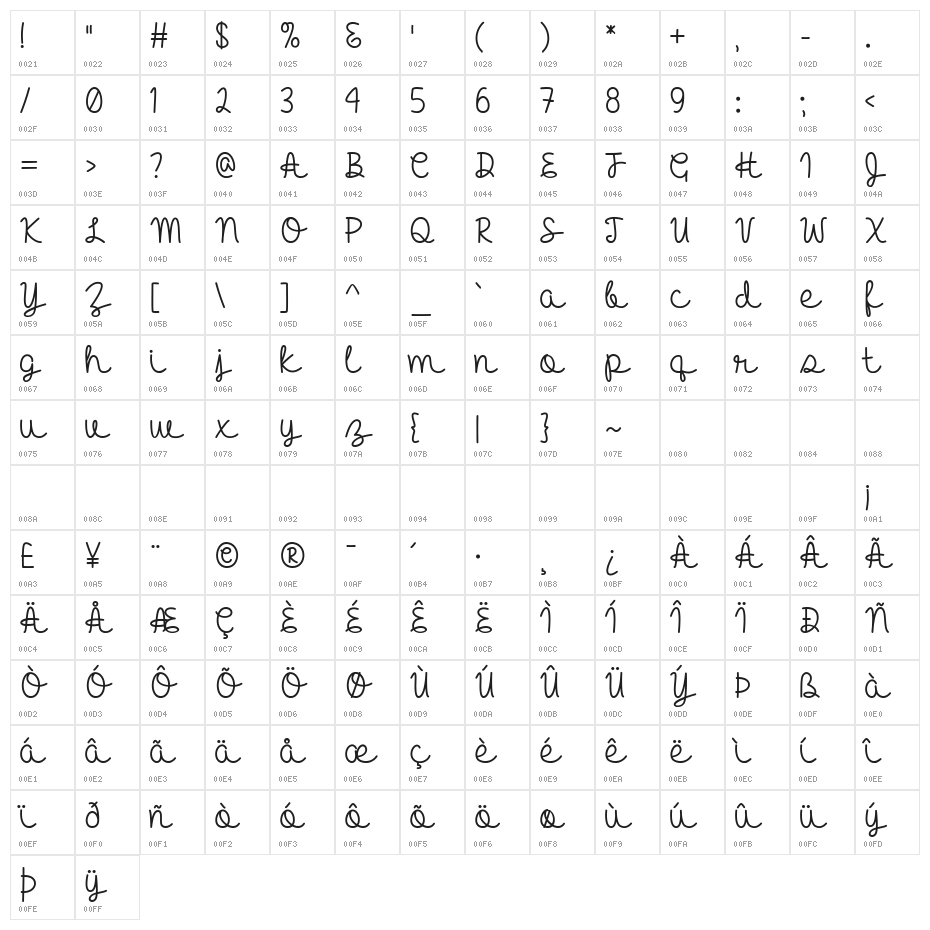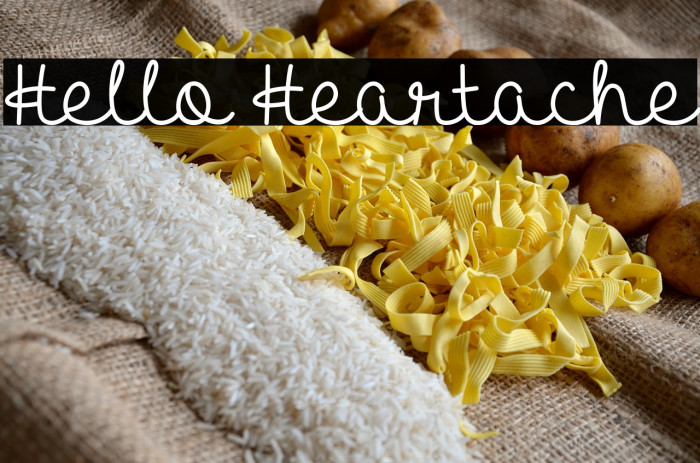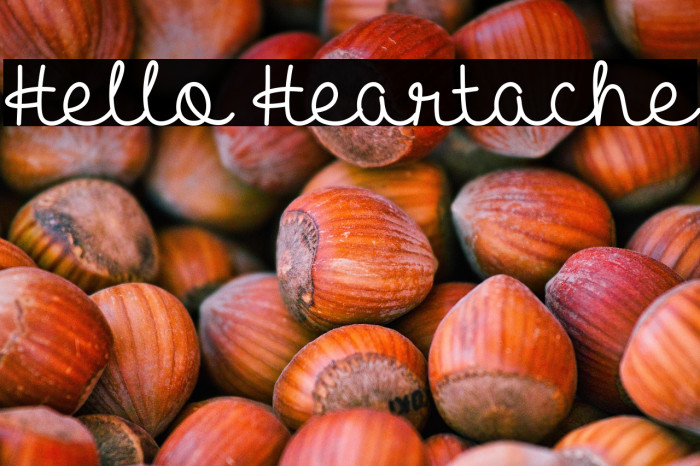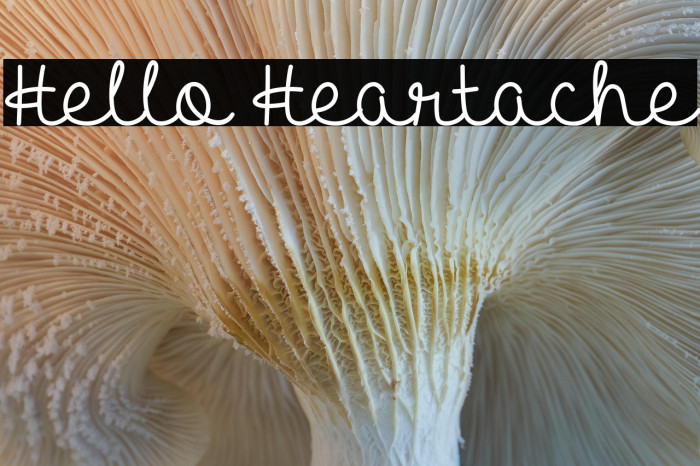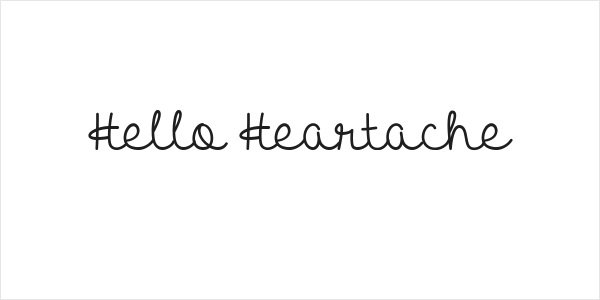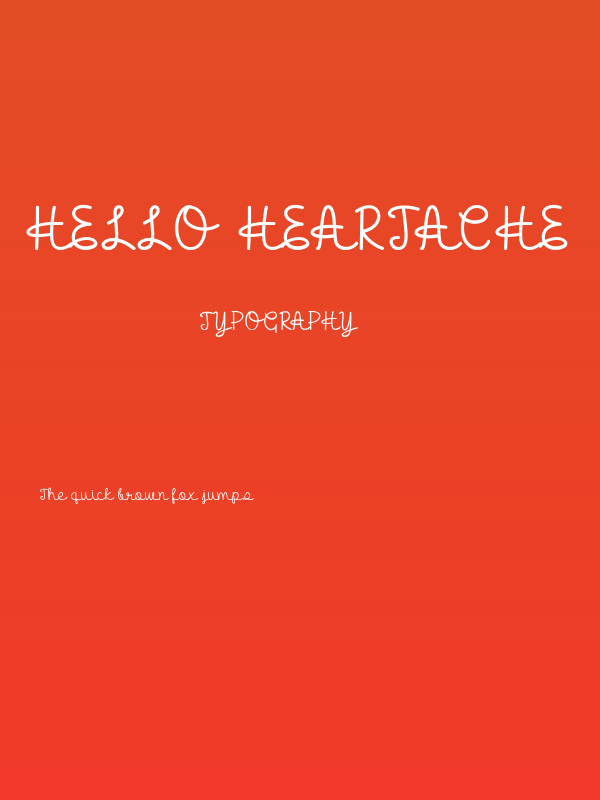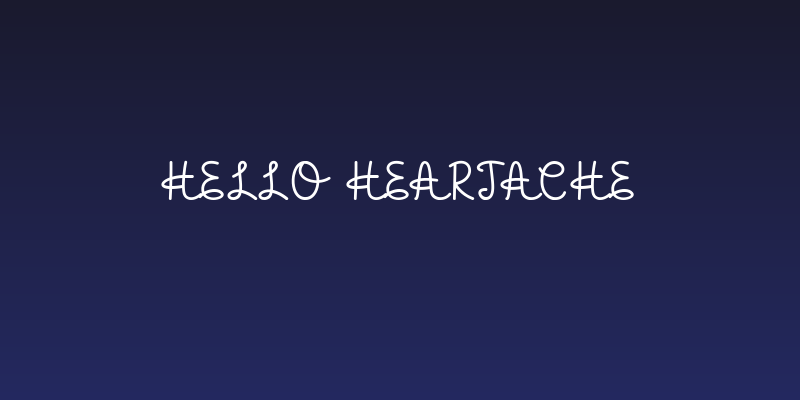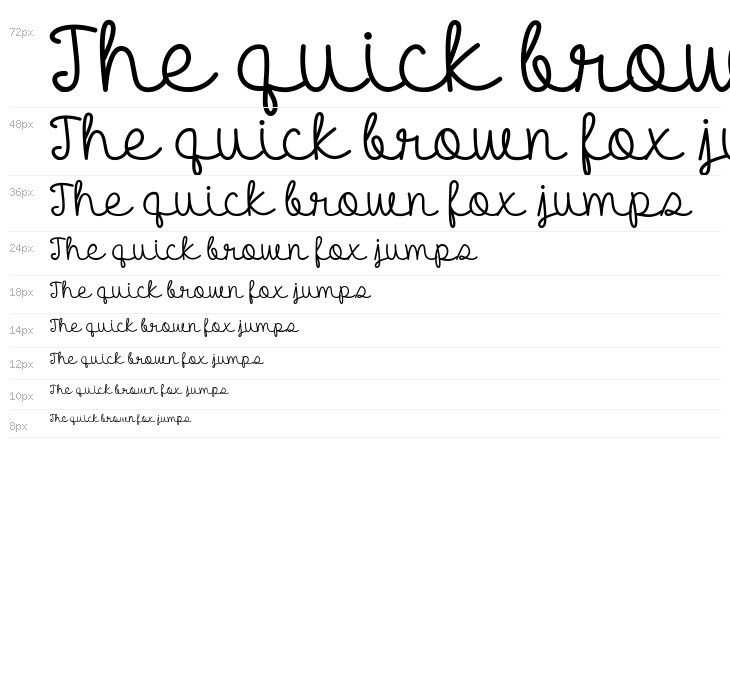
Hello Heartache Font
Hello Heartache Description
This font features a playful and whimsical script style with a handwritten appearance. The letters are connected in a fluid manner, giving it a casual and friendly vibe. The uppercase letters maintain a consistent height, while the lowercase letters have a slight variation in size, adding to the informal feel. The numerals are rounded and match the overall style, ensuring cohesion across different text elements. Special characters are included, maintaining the same playful aesthetic. This font is ideal for projects that require a personal touch or a creative flair.